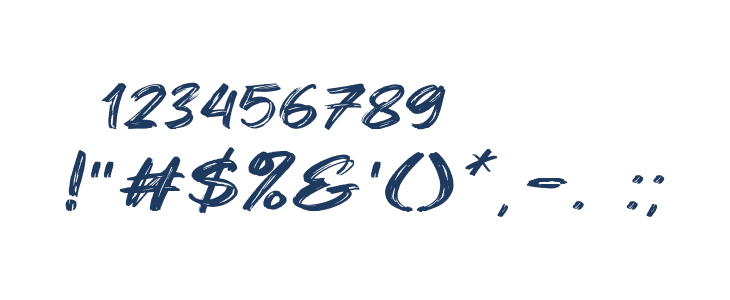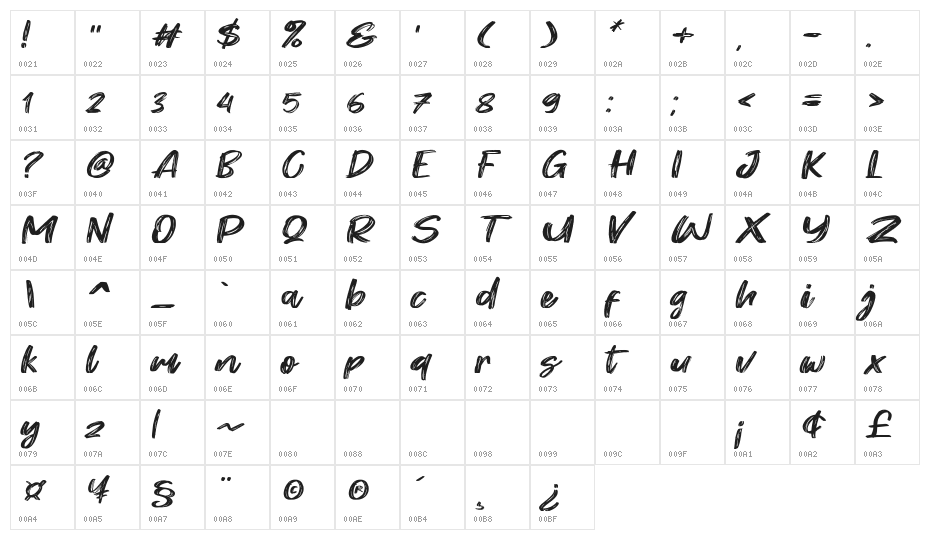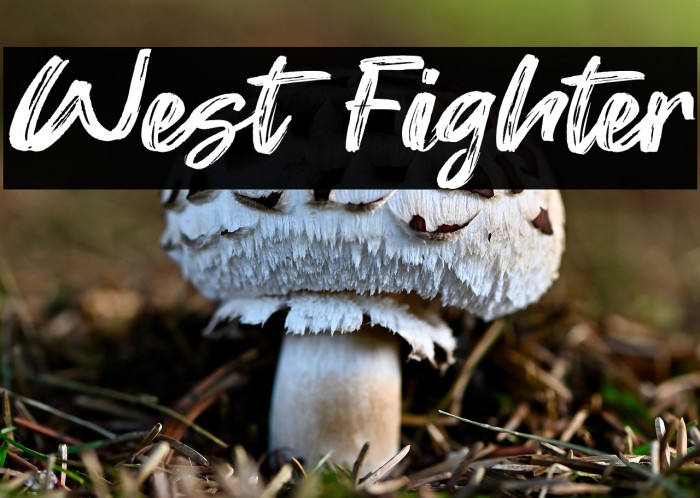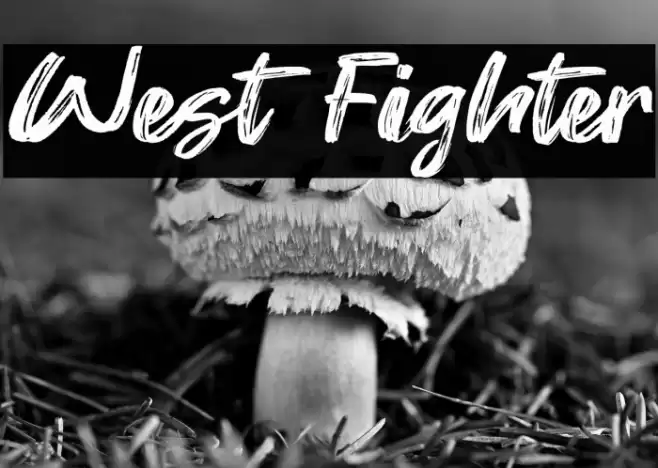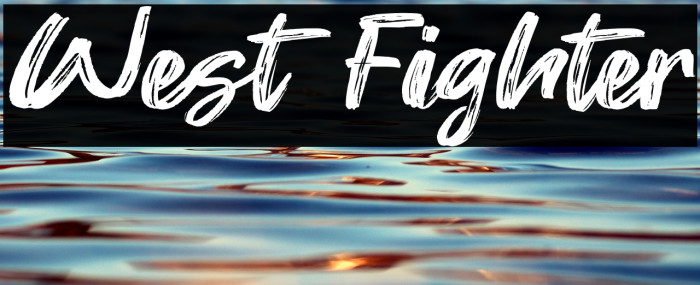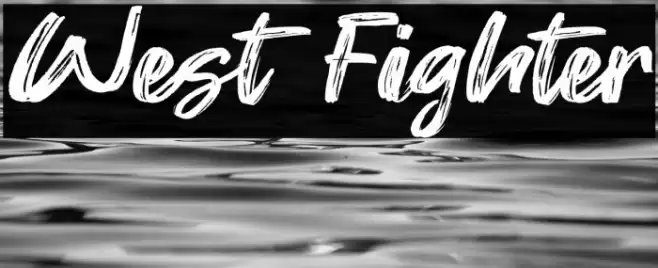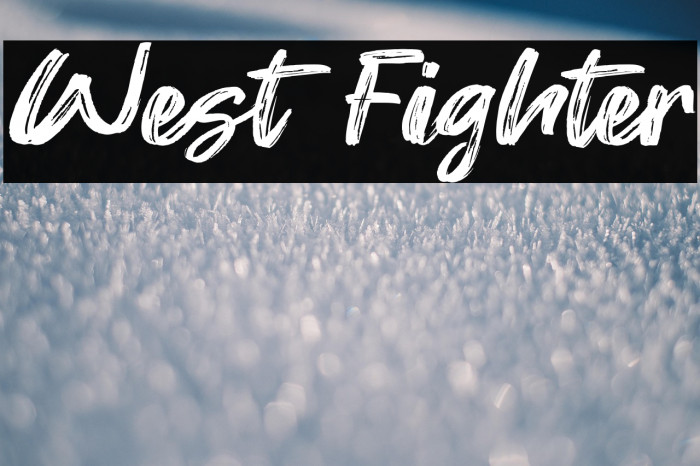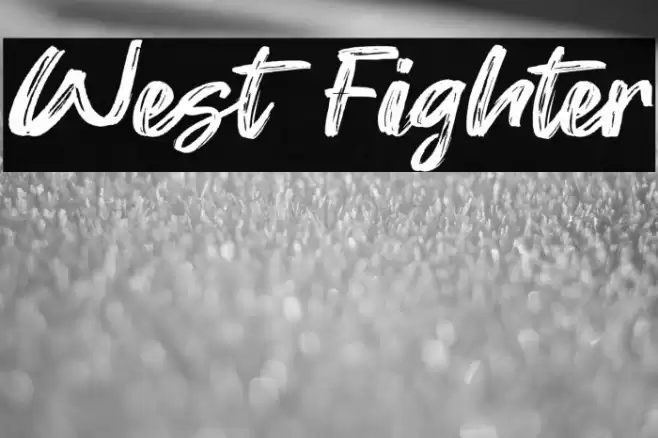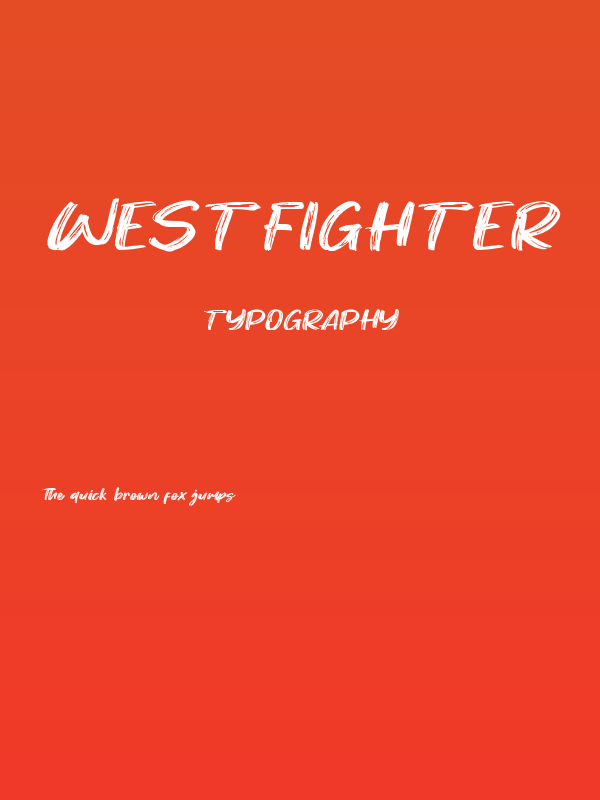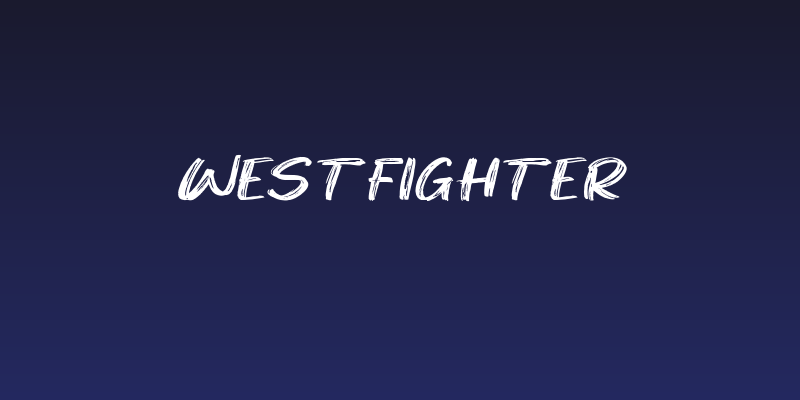
West Fighter Font
West Fighter Description
This font features a bold and dynamic brush script style, characterized by its energetic and expressive strokes. The letters exhibit a hand-painted appearance, with varying stroke widths that create a sense of movement and fluidity. The uppercase and lowercase letters are designed with a casual yet impactful flair, making them stand out in any design. The numerals and special characters maintain the same lively aesthetic, ensuring consistency across all text elements. This font's artistic and bold nature makes it ideal for projects that require a strong visual impact.